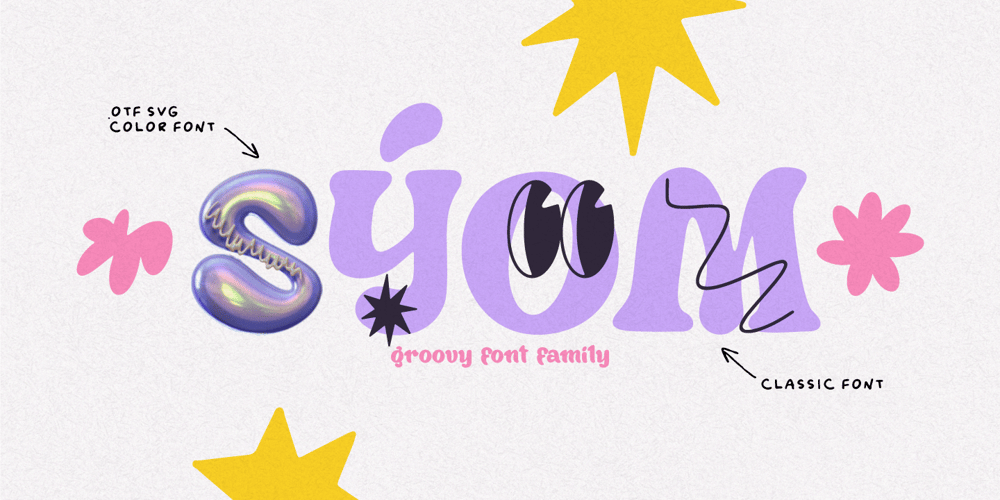
Syom Font Family was designed by Lauritta Ivanova and published by Luxfont. Syom contains 7 styles and family package options. Take a trip back in time with our unique color font family Syom! The rounded and inflated shapes of the letters embody the atmosphere of decades of the last century, while remaining relevant in modern design.Features:- Real 3D effect- Extras- Multilingual- Ability to adapt 3D letters to other languages- KerningIMPORTANT:- Check the glyphs in the font before buying!- SVG fonts contain raster letters.- Check it www.colorfonts.wtf- Try a FREE DEMO version before buying.ld.luxfont@gmail.com